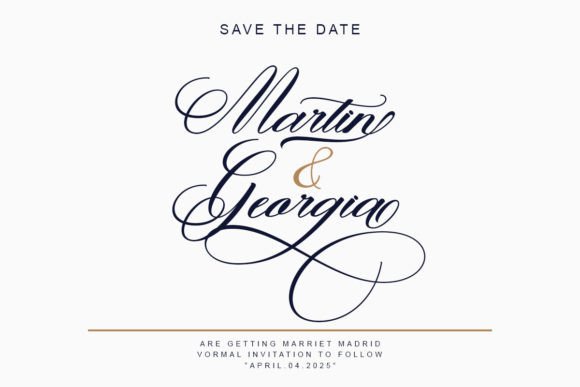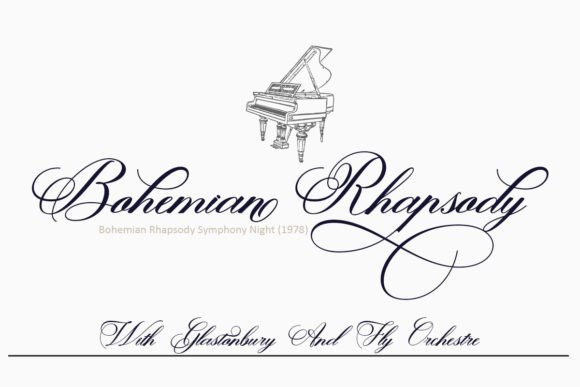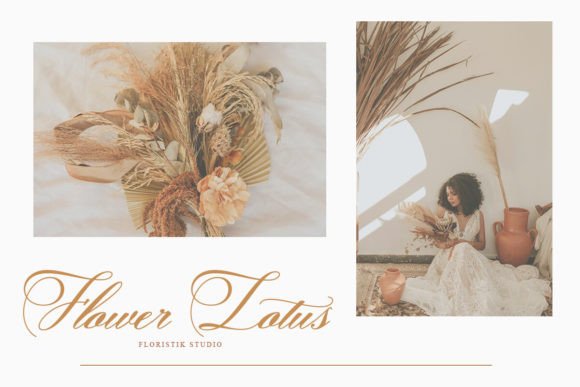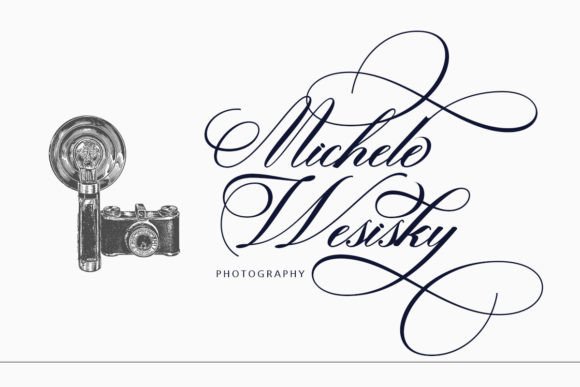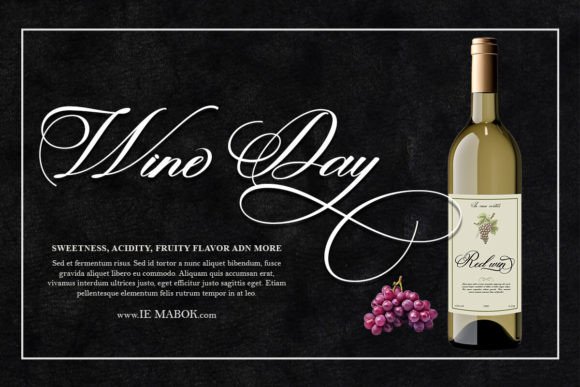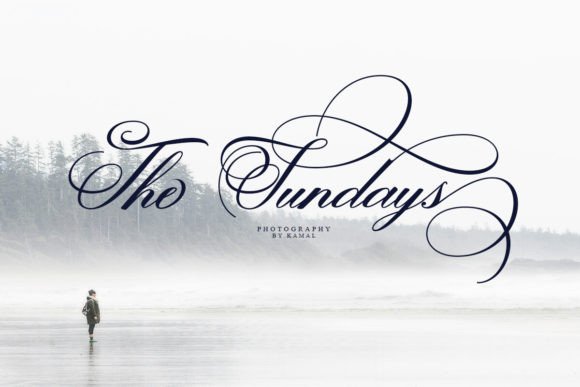
Introduction to Emorphias Font
As you sit at your desk, surrounded by scattered sheets of paper, colored pencils, and a blank computer screen, the creative spark within you is waiting to be ignited. It’s that moment when the perfect font can make all the difference – a font that can elevate your design, add a touch of elegance, and bring your vision to life. Enter Emorphias Font, a game-changing calligraphy font that has taken the design world by storm.
With its unique blend of classical and contemporary styles, Emorphias Font is a valuable resource for designers seeking to add a touch of sophistication to their creative projects. Its high-quality design, versatility, and luxurious feel make it an ideal choice for a wide range of applications, from formal invitations to fashion and makeup branding.
Whether you’re working on a high-end logo design, a wedding invitation, or a novel, Emorphias Font is sure to impress. With its clean and easy-to-read style, it’s the perfect addition to your design arsenal, offering endless possibilities for creative expression.
Key Features of Emorphias Font
- High-quality design resource ideal for creative projects, offering a unique and modern aesthetic.
- Designed with a focus on legibility and readability, making it perfect for body text and titles in your creative project.
Honest Review: Emorphias Font
As a designer, I’m always on the lookout for high-quality design resources to elevate my creative projects. The Emorphias Font has caught my attention, and I’m excited to share my honest review with you.
- ✨ Unique and elegant design style that sets it apart from other fonts
- ✨ High-quality vector format for seamless scalability
- ⚠️ Limited language support, which may be a concern for designers working with non-English texts
- ⚠️ Not as extensive a character set as some other fonts, which may limit its use for certain creative projects
Overall, I’m impressed with the Emorphias Font’s unique design style and high-quality construction. While it may not be the perfect font for every designer, it’s definitely worth considering for creative projects that require a touch of elegance and sophistication.
Emorphias Font Overview
Emorphias Font is a high-quality design resource ideal for various creative projects. This versatile font can be used for a wide range of applications, from graphic design to digital art.
Tips for Getting the Most Out of Emorphias Font
For optimal results, use Emorphias Font in conjunction with high-quality images and backgrounds. Experiment with different font sizes, colors, and styles to achieve a unique look.
Common Use Cases for Emorphias Font
Emorphias Font is commonly used in graphic design, digital art, and creative projects that require a high-quality, versatile font. Some popular use cases include:
- Infographic creation
- Brochure and flyer design